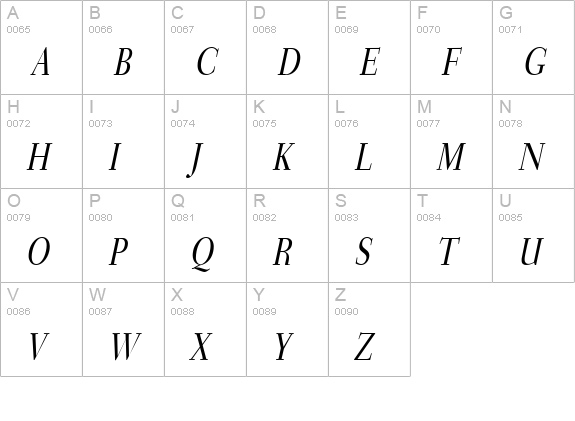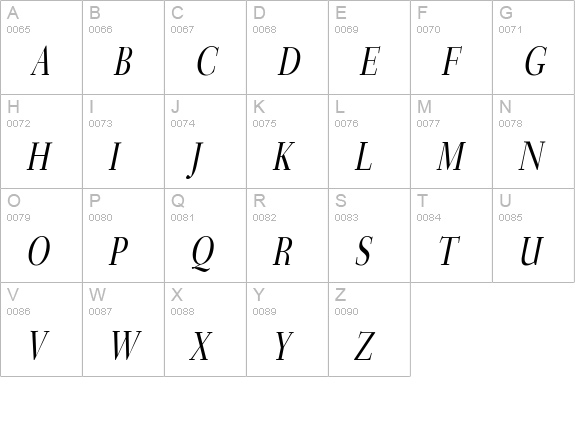
Transit Condensed Italic Font Details
Transit Condensed Italic is a distinctive, condensed-width, italic variant in the Transit typeface family \xE2\x80\x94 well suited to design and typography projects.